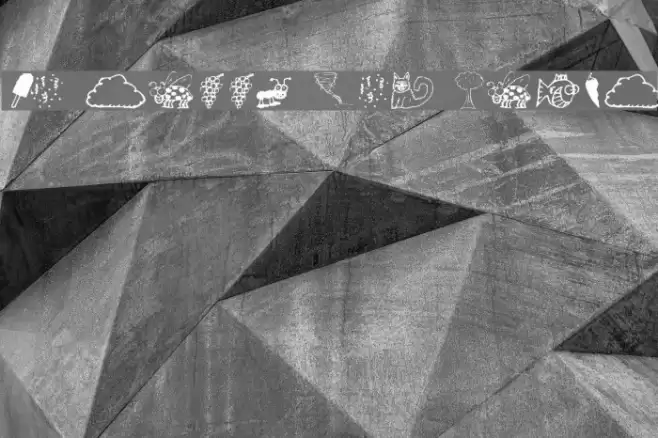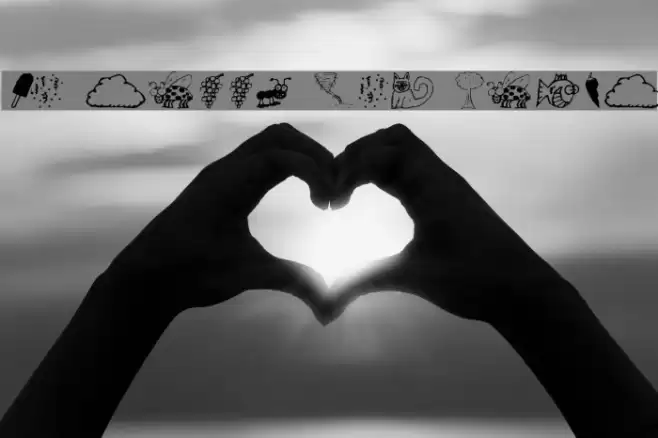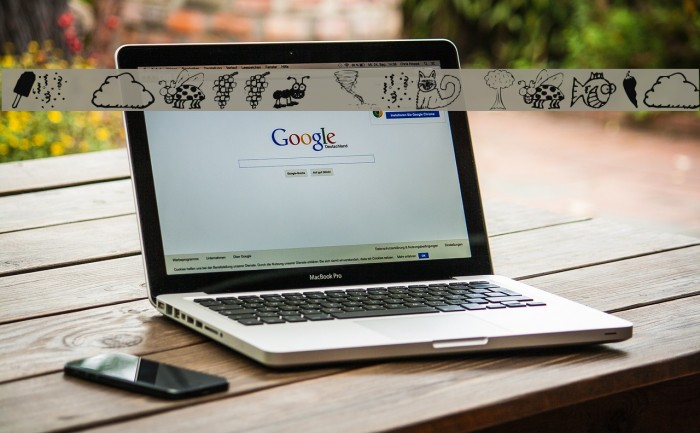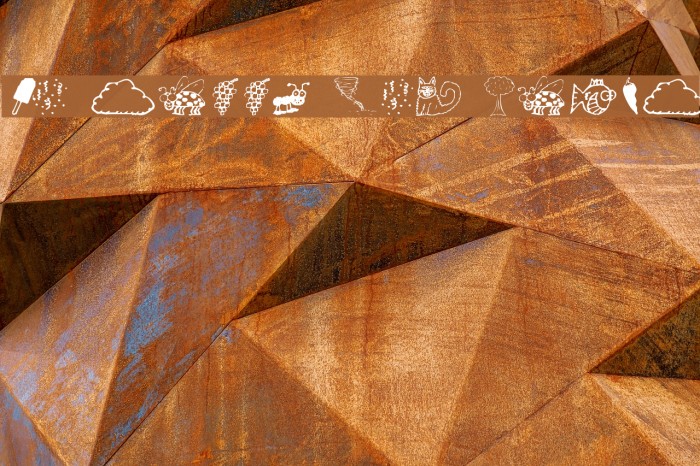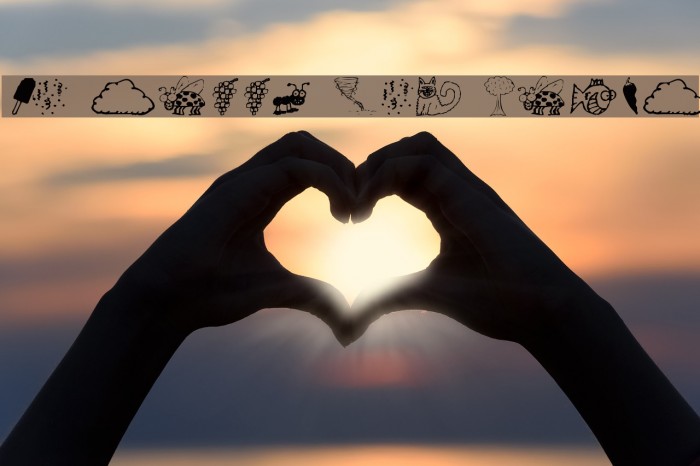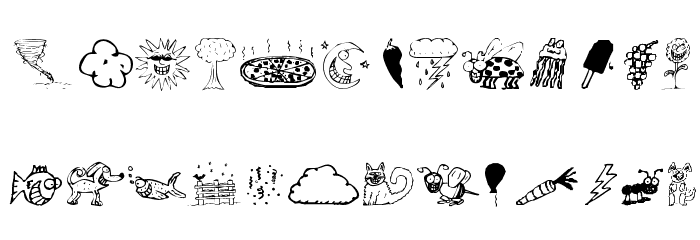
KR Silly Art Dings Font
KR Silly Art Dings Description
This is a whimsical and playful dingbat font featuring a variety of quirky and fun illustrations. Each character is represented by a unique drawing, ranging from animals and nature elements to everyday objects. The style is hand-drawn, with a cartoonish and lighthearted feel, making it perfect for creative and informal projects. The illustrations are detailed yet simple, allowing for easy recognition and use in various design contexts. The font does not include traditional alphanumeric characters but instead offers a collection of imaginative symbols that can add a touch of humor and creativity to any project.
A playful dingbat font with whimsical, hand-drawn illustrations from Images & Symbols fonts.
- Proposed Projects: Ideal for children's books, greeting cards, playful posters, and creative design projects.
- Overall Style: Whimsical, Playful
- Use Case: Decorative elements, Illustrations